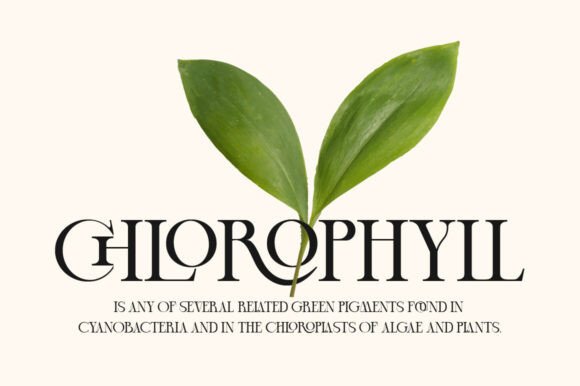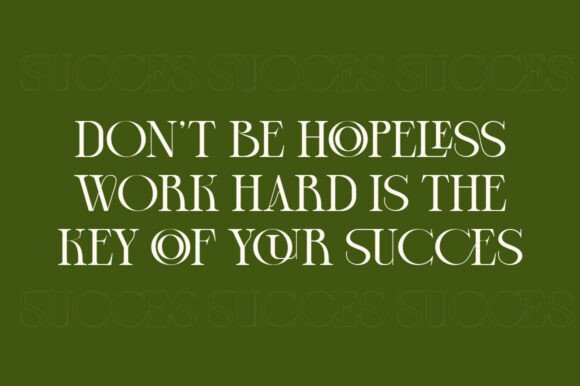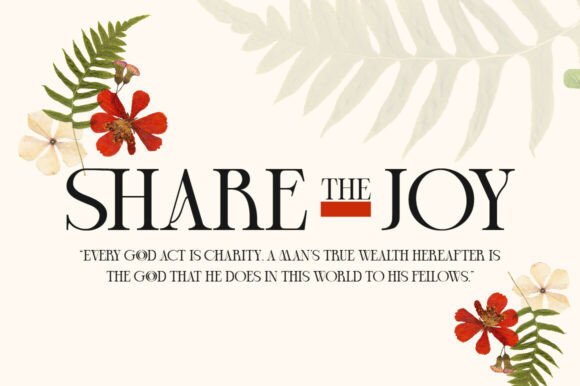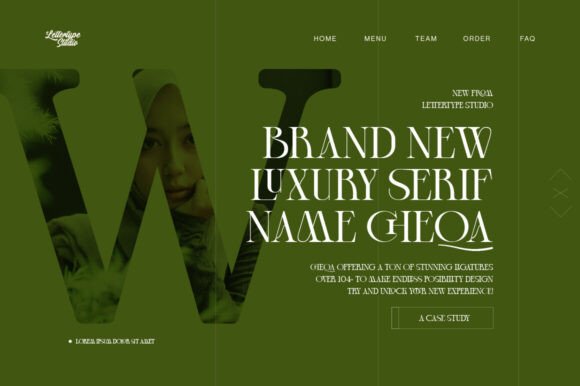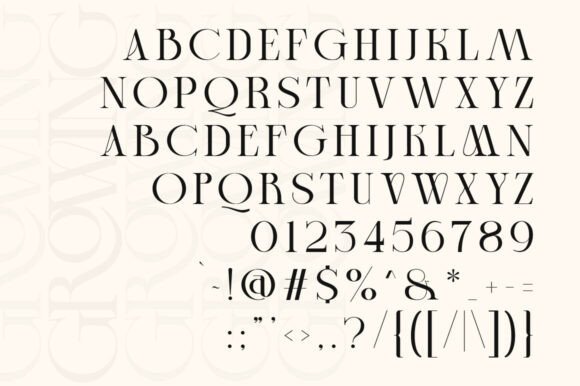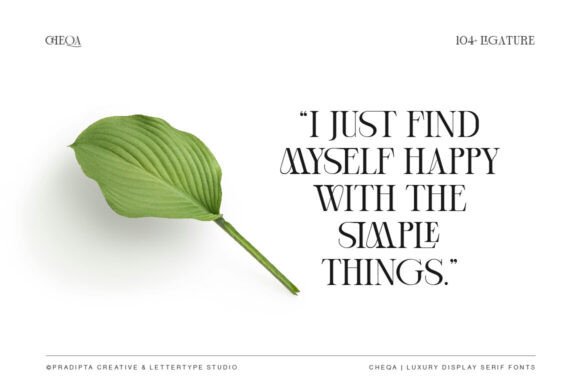
Introducing Cheqa Font: Elevate Your Designs with Luxury and Elegance
In the world of typography, a font can make or break the aesthetic of a design project. For designers and crafters seeking to infuse their work with sophistication and refinement, Cheqa Font is an exceptional choice. This luxury and elegant chic serif font, inspired by 18th-century typography, offers a classic style that exudes timeless appeal.
The Inspiration Behind Cheqa Font
Cheqa Font draws inspiration from the elegant typography of the 18th century, a period renowned for its refined and sophisticated printing styles. The font’s design meticulously captures the essence of this era, blending traditional elements with a modern twist. This blend of old and new results in a font that is not only classic but also versatile and contemporary.
Key Features of Cheqa Font
- Classic Serif Design: Cheqa Font features a chic serif design that echoes the elegance of traditional typography.
- Clean Lines and Geometric Details: The font boasts clean lines and geometric details, providing a luxurious feel to any design.
- Versatility: Perfect for a wide range of applications, including sophisticated branding, editorial design, web typography, and more.
- Timeless Appeal: The font’s classic style ensures that your projects remain stylish and relevant for years to come.
Applications of Cheqa Font
Cheqa Font’s versatility makes it suitable for various design projects. Here are some of the ideal applications:
- Sophisticated Branding: Elevate your brand’s typography with a font that communicates luxury and elegance.
- Editorial Design: Add a touch of classic sophistication to magazines, newspapers, and digital publications.
- Web Typography: Enhance your website’s aesthetic with a font that offers both readability and style.
- Packaging and Advertising: Stand out in a crowded market with packaging and ads that exude luxury and refinement.
Why Choose Cheqa Font?
For designers and crafters, the choice of font can significantly impact the final outcome of a project. Here are reasons why Cheqa Font stands out:
- Elegance and Style: Cheqa Font brings an unparalleled level of elegance and style to any project.
- Versatility: Its classic yet modern design makes it adaptable to various design needs.
- Refinement: Ideal for designers seeking to add a touch of luxury and sophistication to their work.
Cheqa Font is a luxury and elegant chic serif font that brings the sophistication of 18th-century typography to modern design projects. With its clean lines, geometric details, and timeless appeal, it is perfect for designers and crafters looking to elevate their work with elegance and style. Whether you’re working on branding, editorial design, web typography, or any other project, Cheqa Font offers the versatility and refinement you need to stand out.
Discover the luxury and elegance of Cheqa Font and transform your design projects with a touch of classic sophistication. Perfect for those who seek versatility and refinement in their typography choices, Cheqa Font is set to become your go-to for creating stunning and memorable designs.